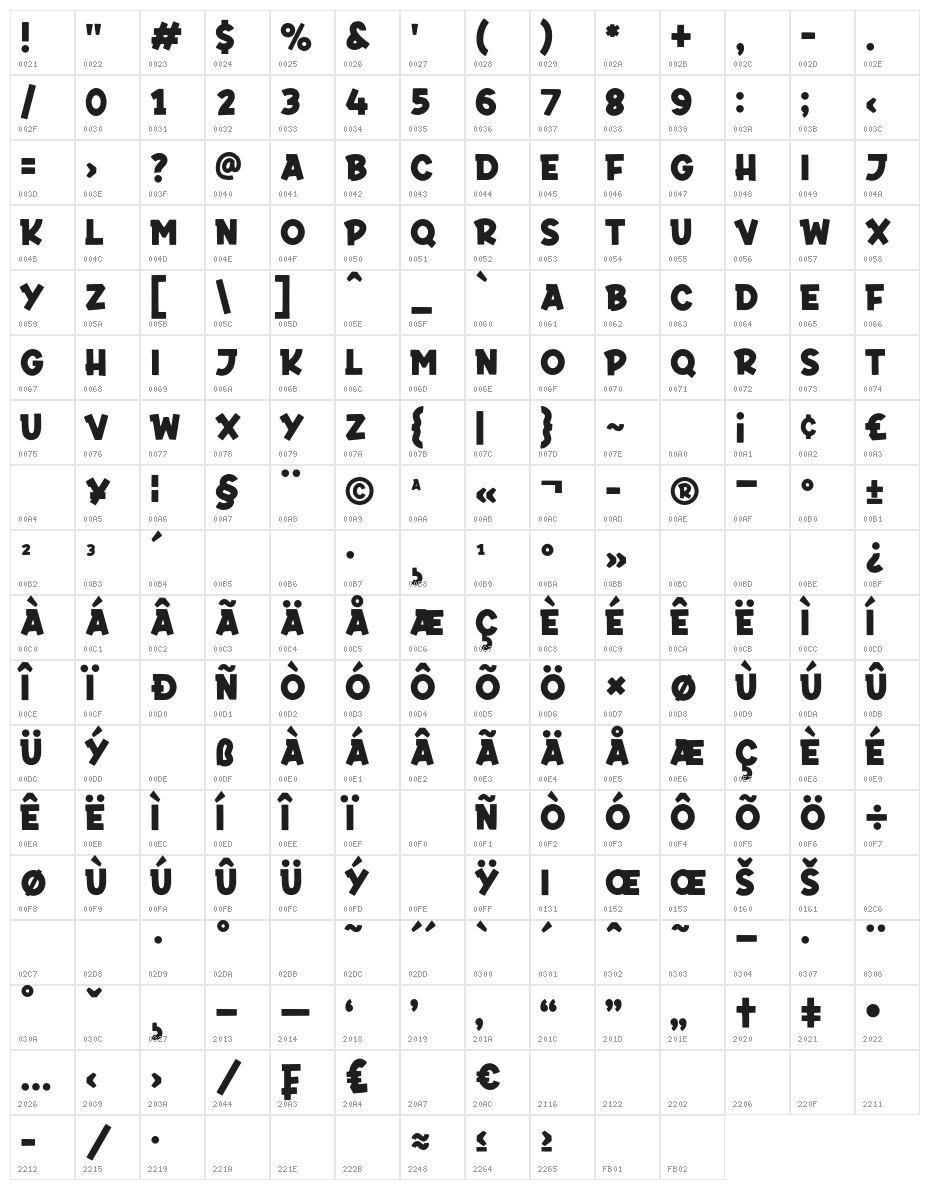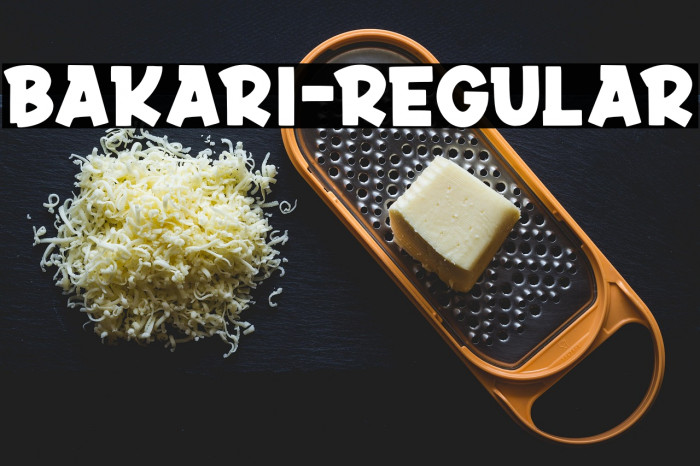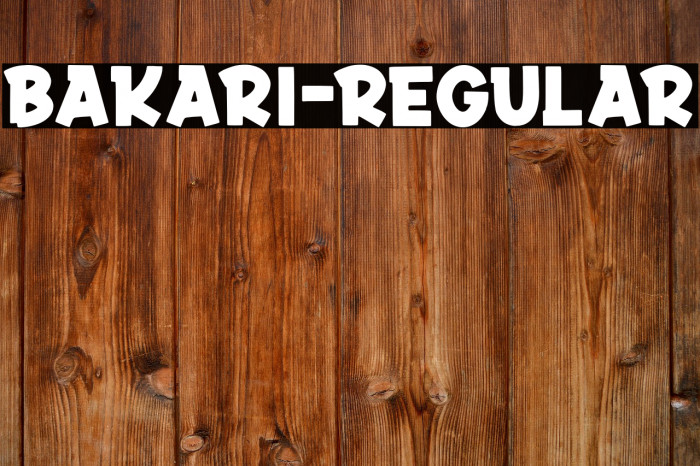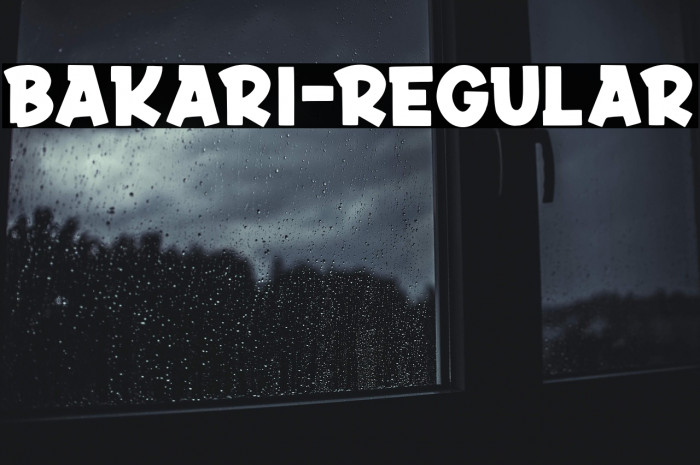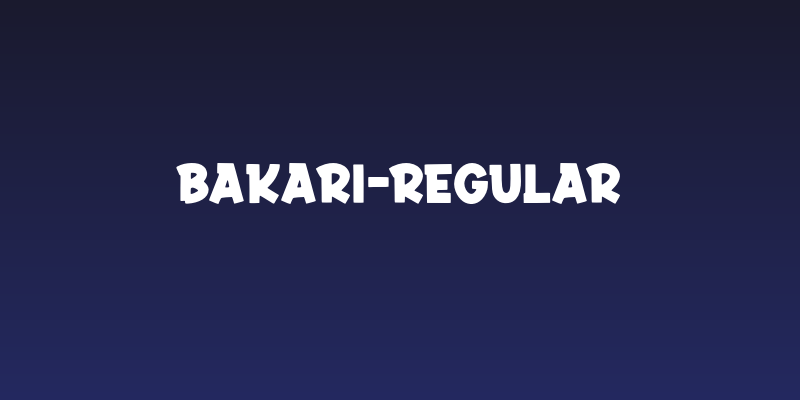
Bakari-Regular Font
Bakari-Regular Description
This font features bold, playful characters with a strong presence. The letters are thick and rounded, giving them a friendly and approachable appearance. The strokes are consistent in width, contributing to a cohesive look. The characters have a slight slant, adding a dynamic feel to the text. The overall style is modern and fun, making it suitable for creative and informal projects. The numbers and special characters maintain the same playful style, ensuring uniformity across all text elements.
| Proposed Projects | Ideal for children's books, posters, branding for playful products, and any project needing a fun and approachable typeface. |